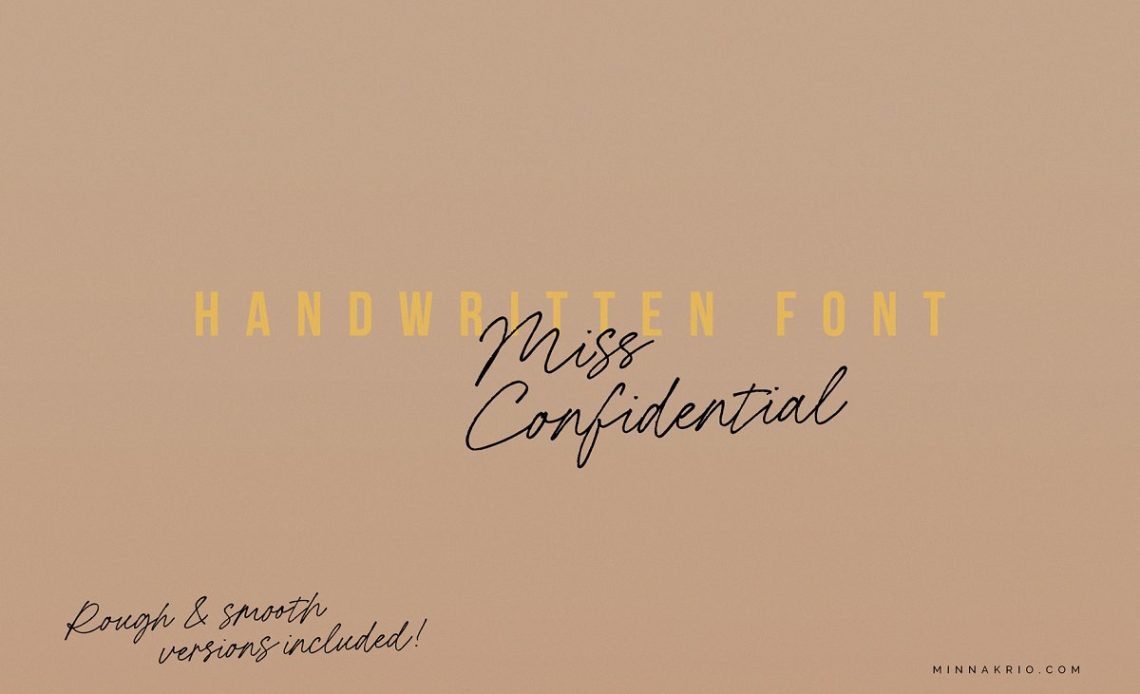
Introducing Miss Confidential - the perfect choice for adding a warm, organic, and handmade touch to your designs. This casual yet classy handwritten script font is created by Minna Kaario and is perfect for various design projects, including logos, wedding invites, product packaging, cards, quotes, social media material, and more.
Miss Confidential is your go-to font when you want to add a charming pen-on-paper look to your designs. She comes with a full set of lowercase alternates and over 40 ligatures, giving you plenty of variety and options to create unique and personalized designs. The font also comes in both TTF and OTF formats, ensuring compatibility with a wide range of software.
But that's not all - the original Miss Confidential has a rough look, perfect for when you want to add a touch of authenticity to your design. However, if you prefer smooth and clean outlines, Miss Confidential can also transform into a Smooth version. You can access the Alternates and Ligatures with the provided Alt & Liga fonts if your software does not support OpenType.